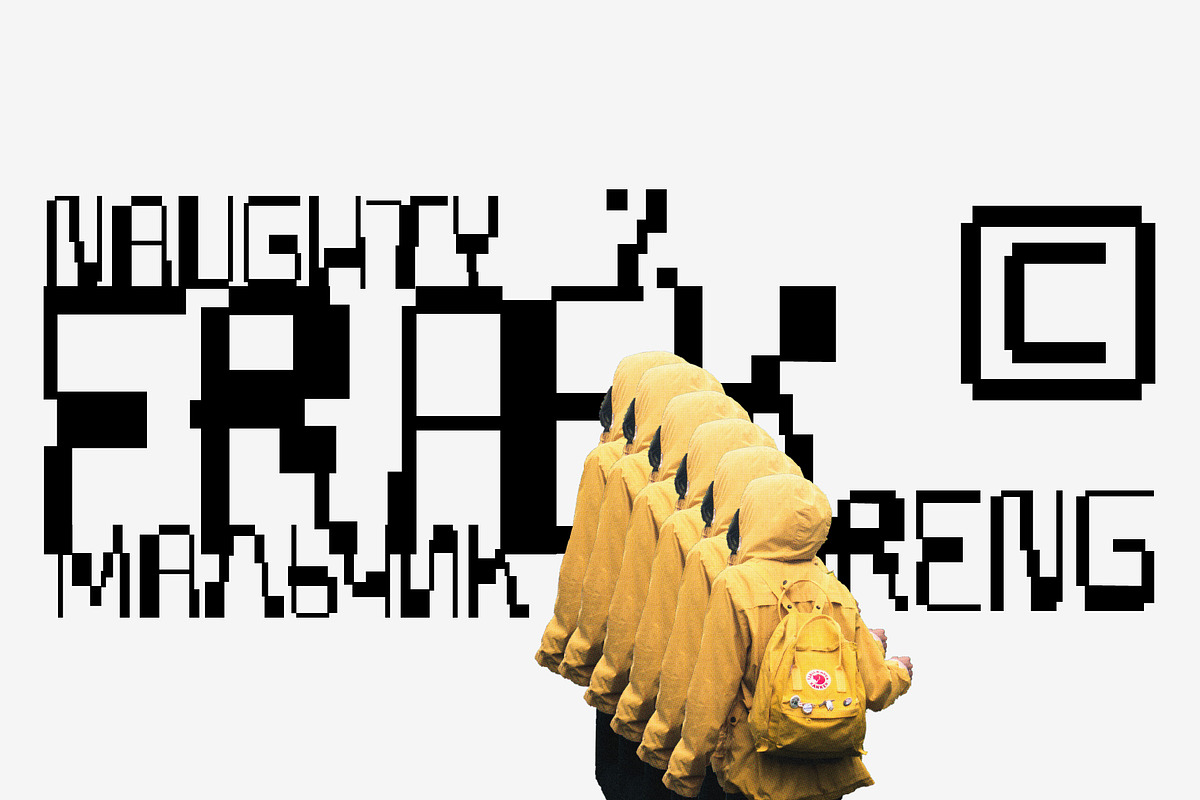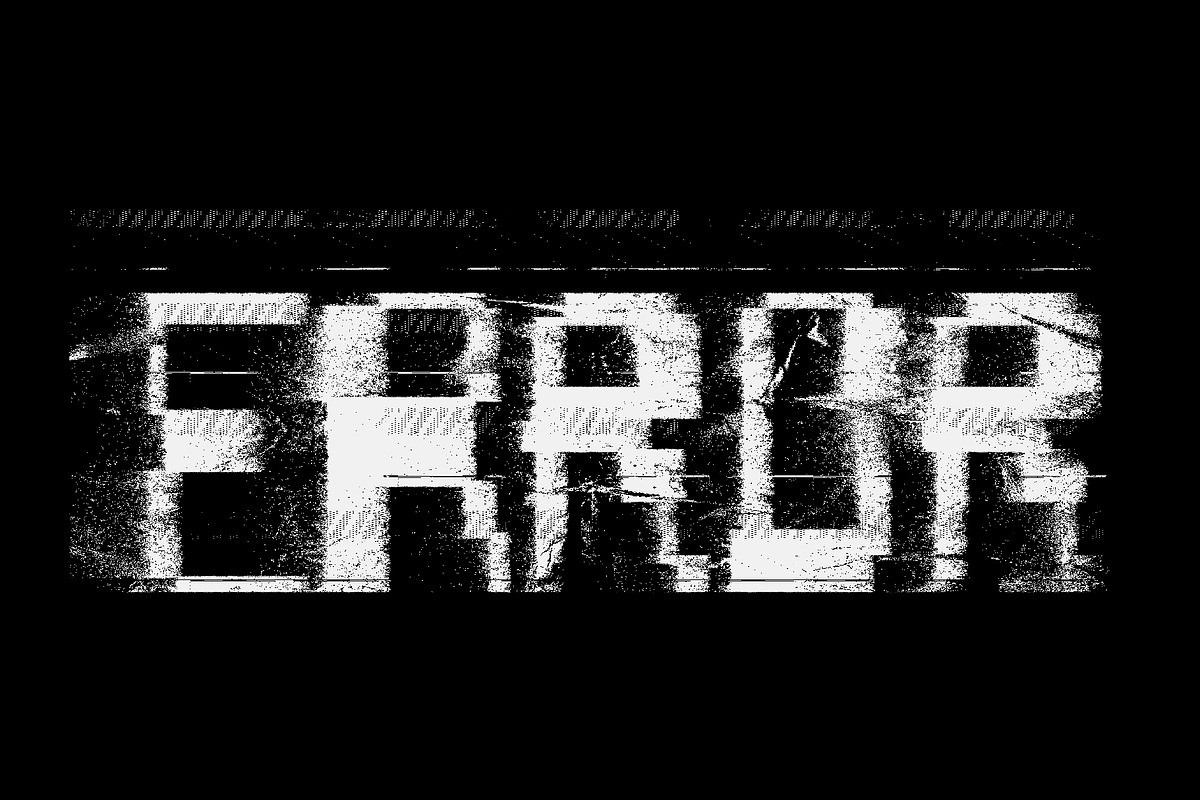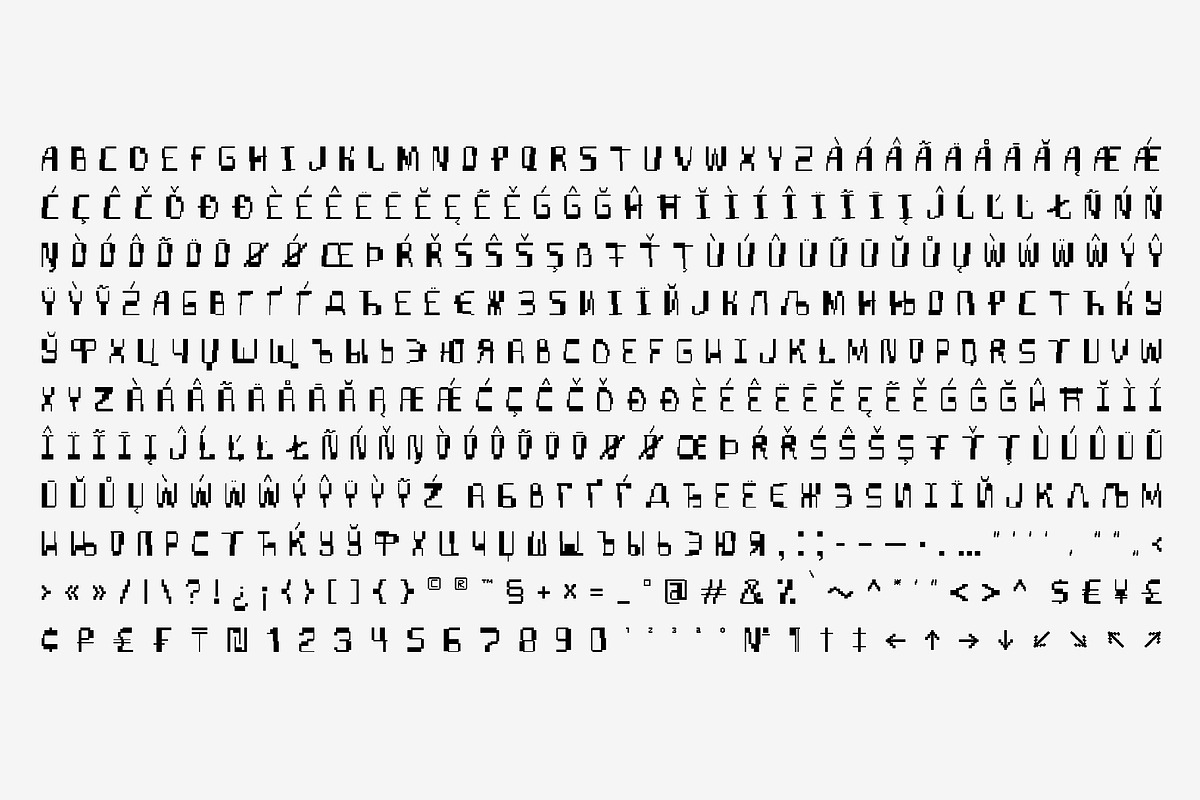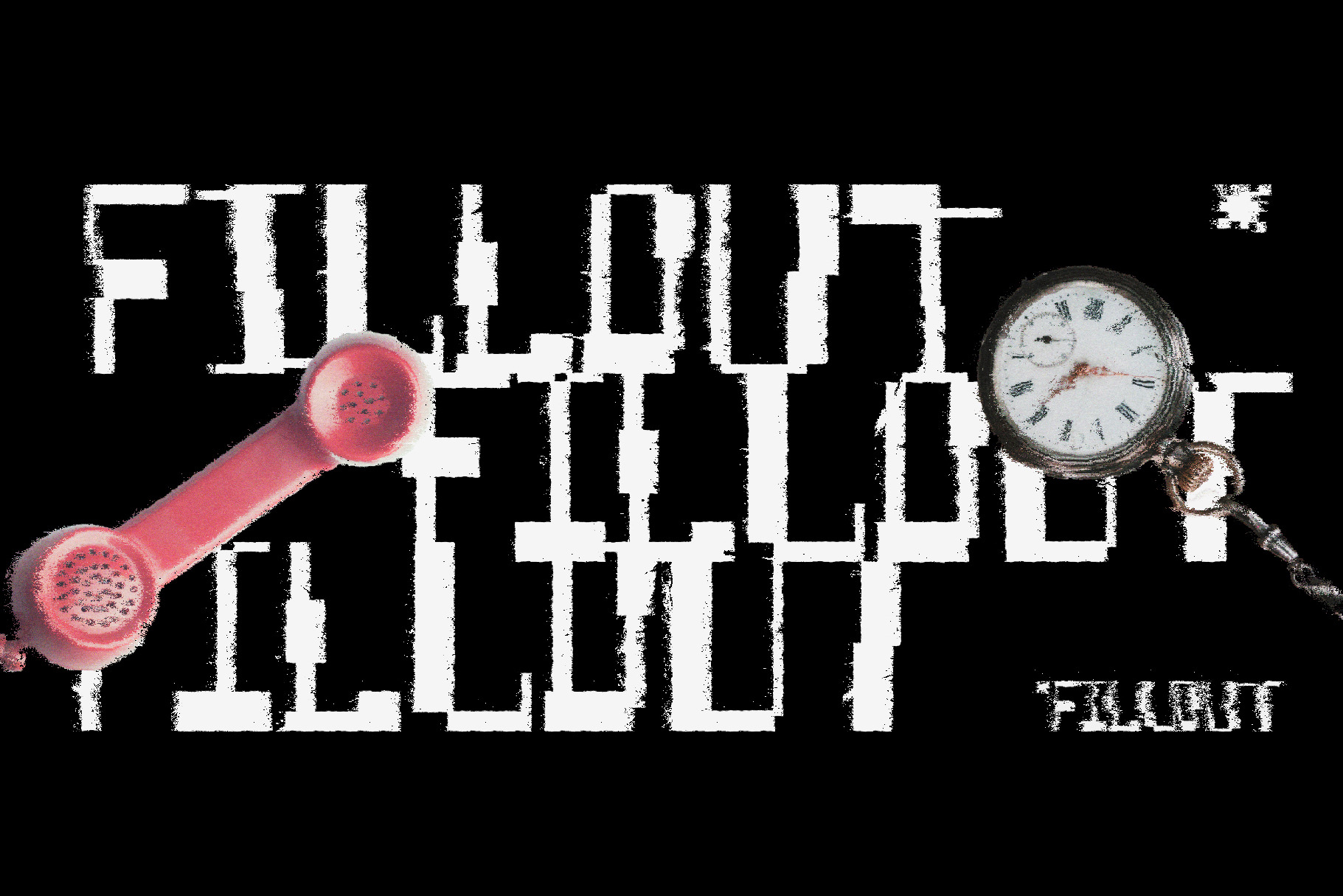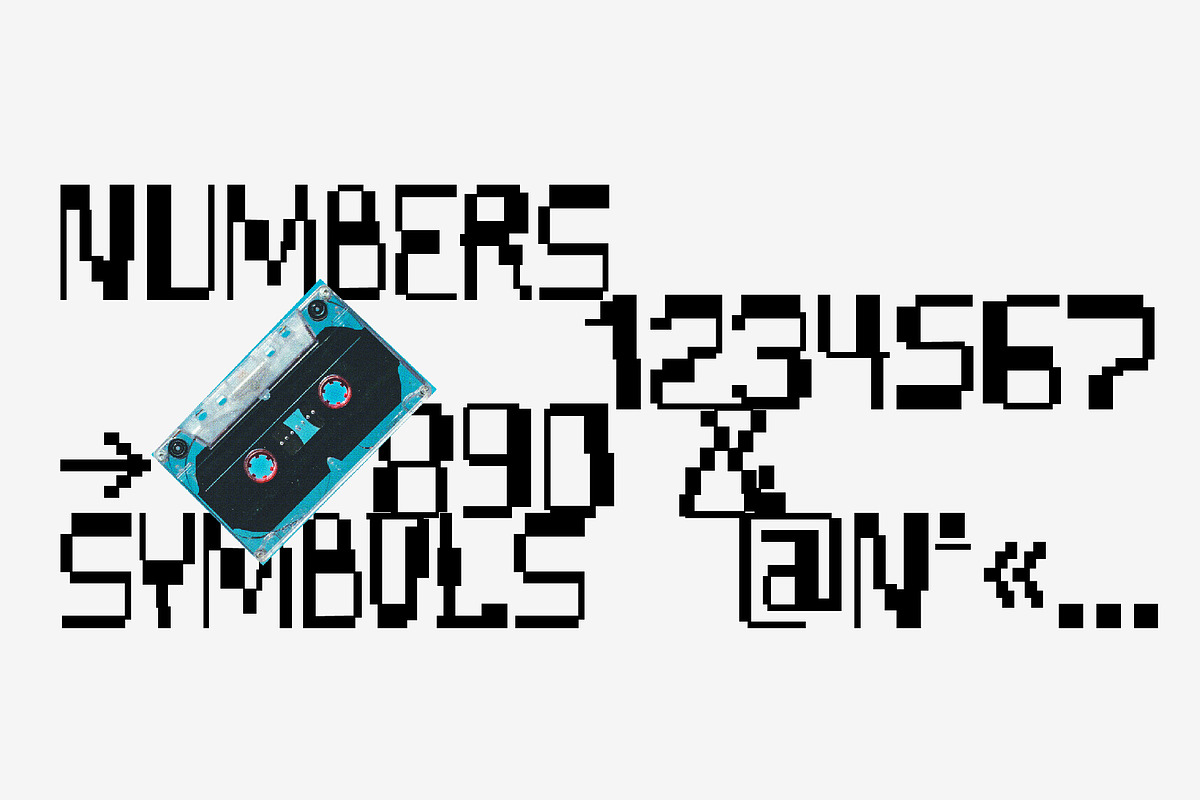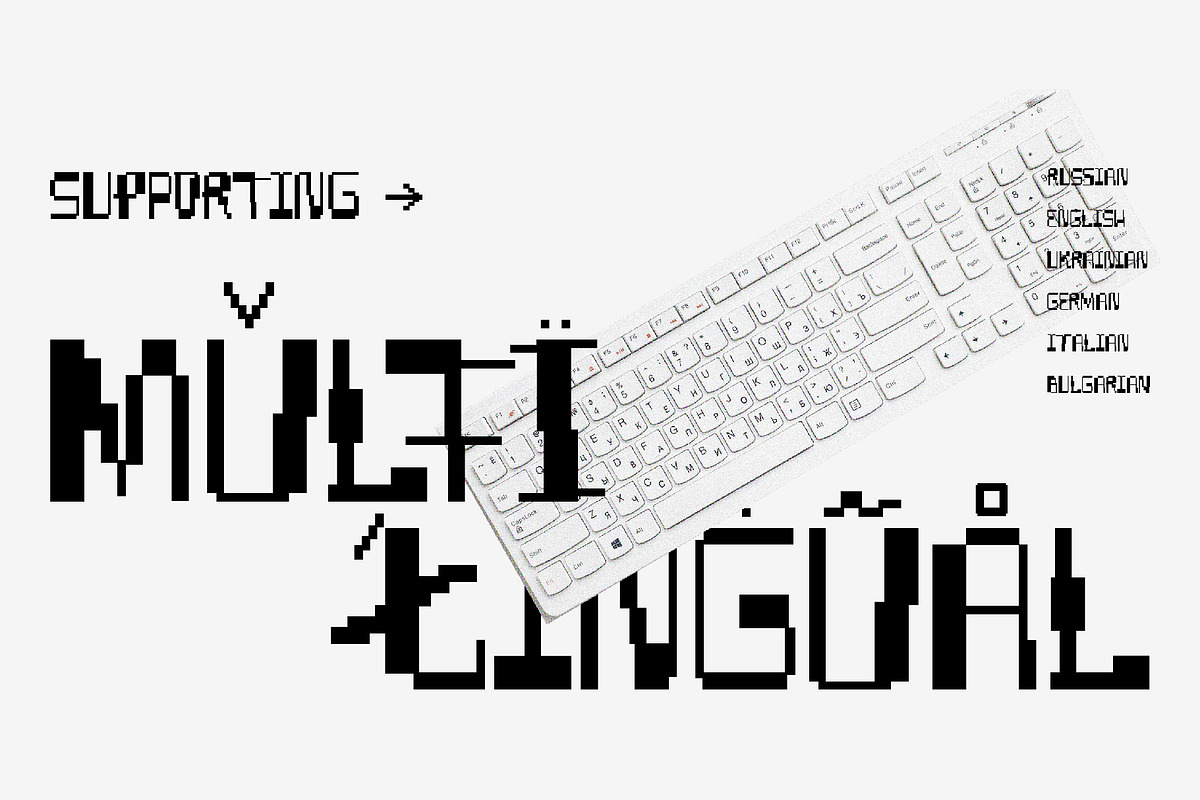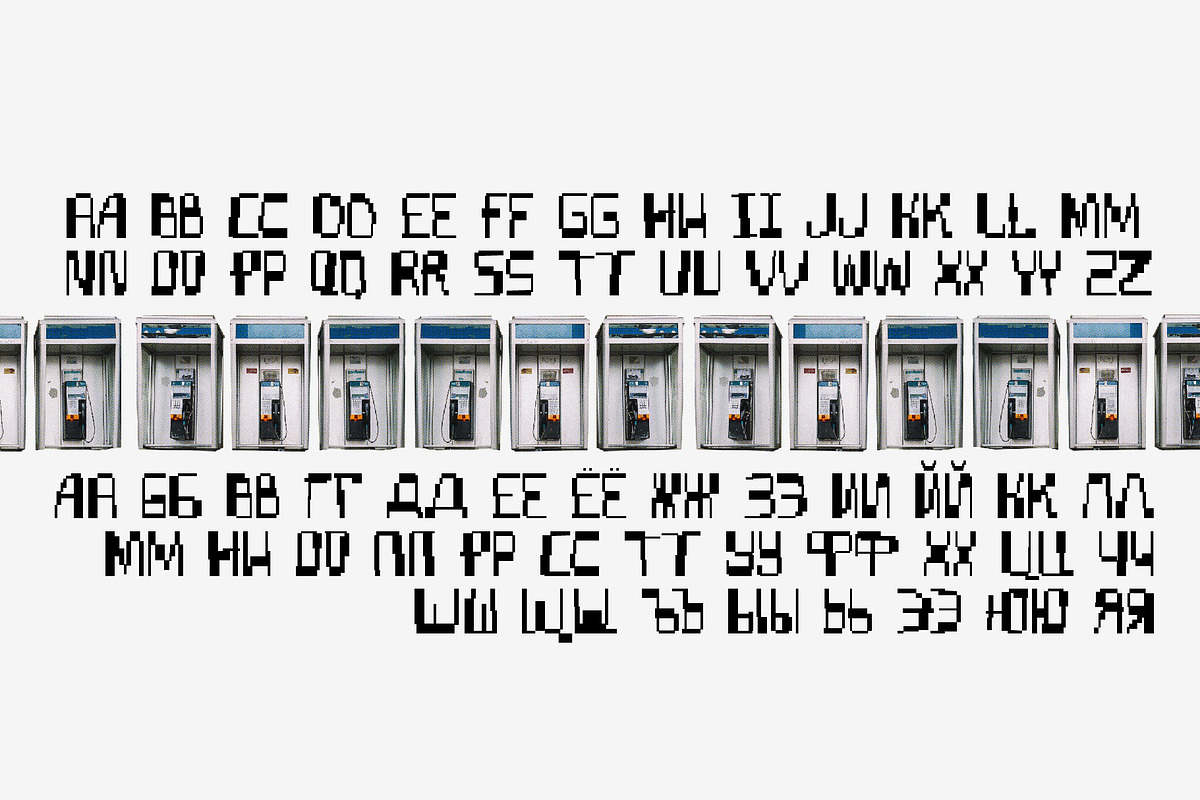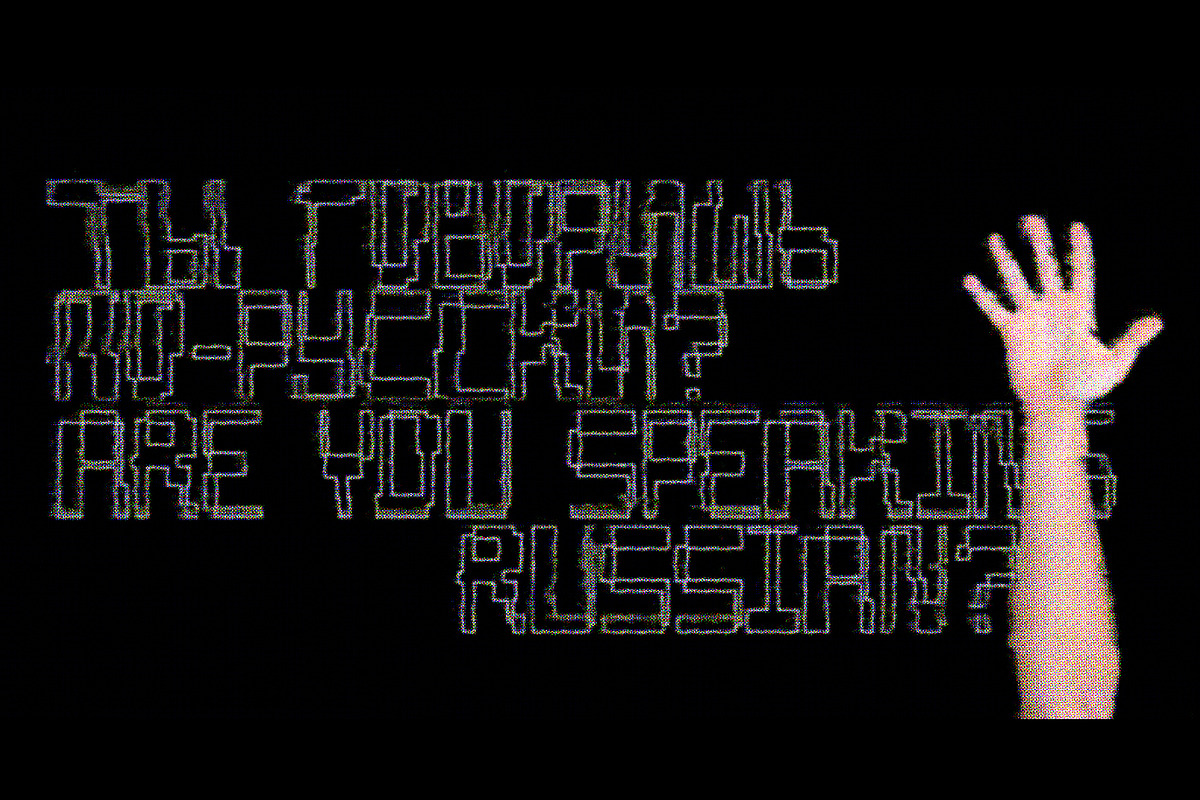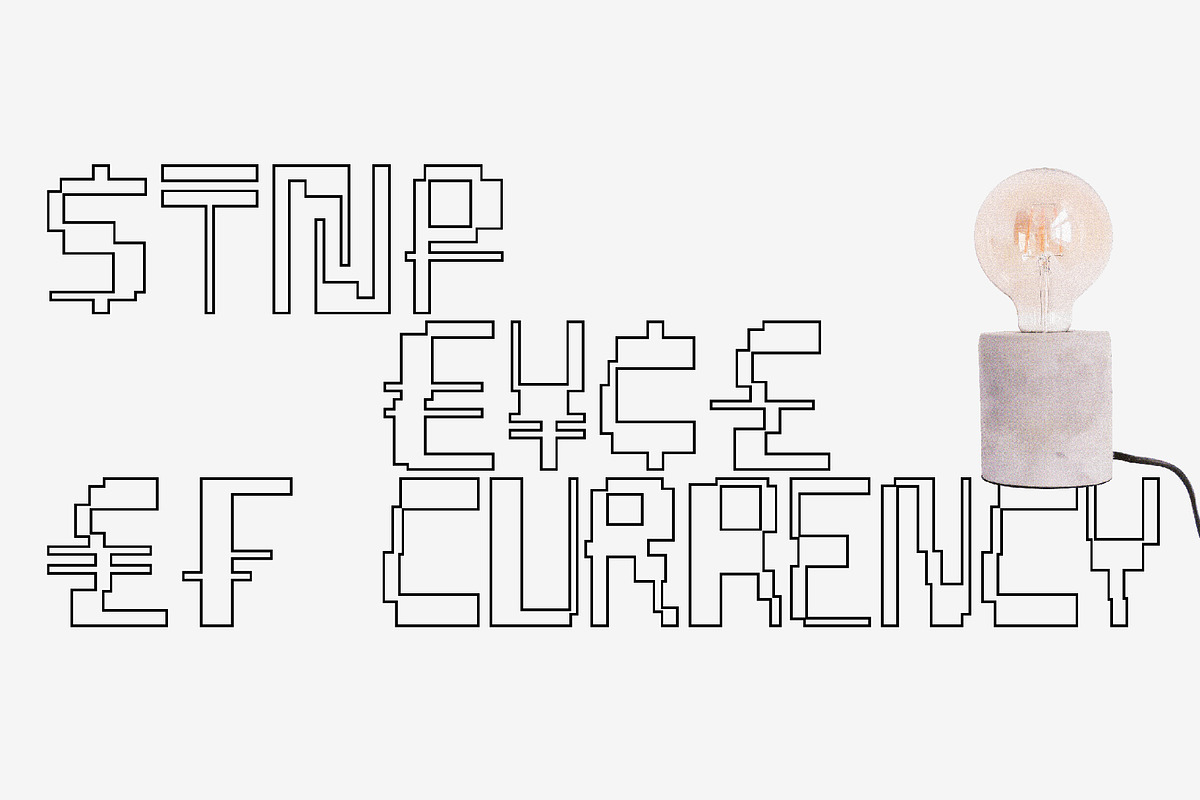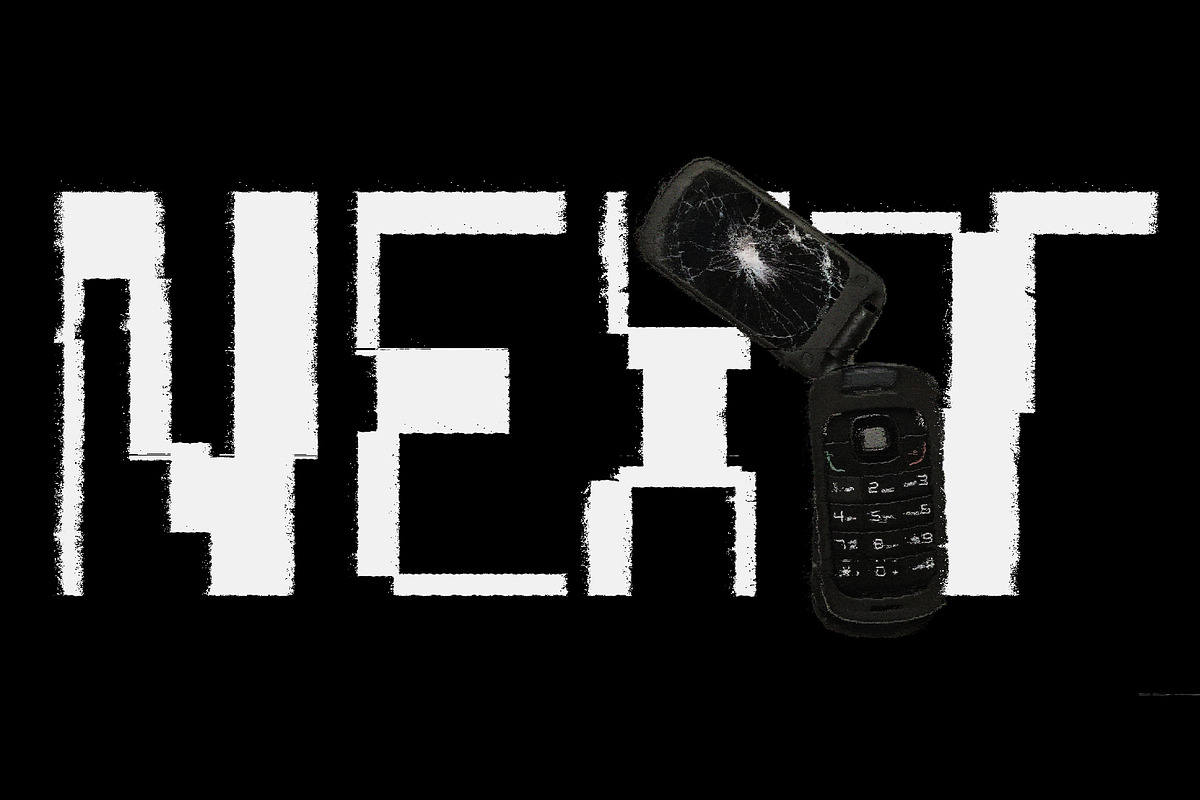
SK Fillout — Display Pixel Font
SK Fillout is a display typeface inspired by the problem of information noise. Noise is embedded in the basis of characters structure, which gives it a unique form. The typeface is built on combining several thicknesses into a single symbol form with an offset at different distances. For better expressiveness, each letter has two variations of the character it included into the uppercase and lowercase sets. This typeface supports many languages included in the Extended Latin and Cyrillic type sets. The SK Fillout font is perfect for bold design, for working with printed and web products.